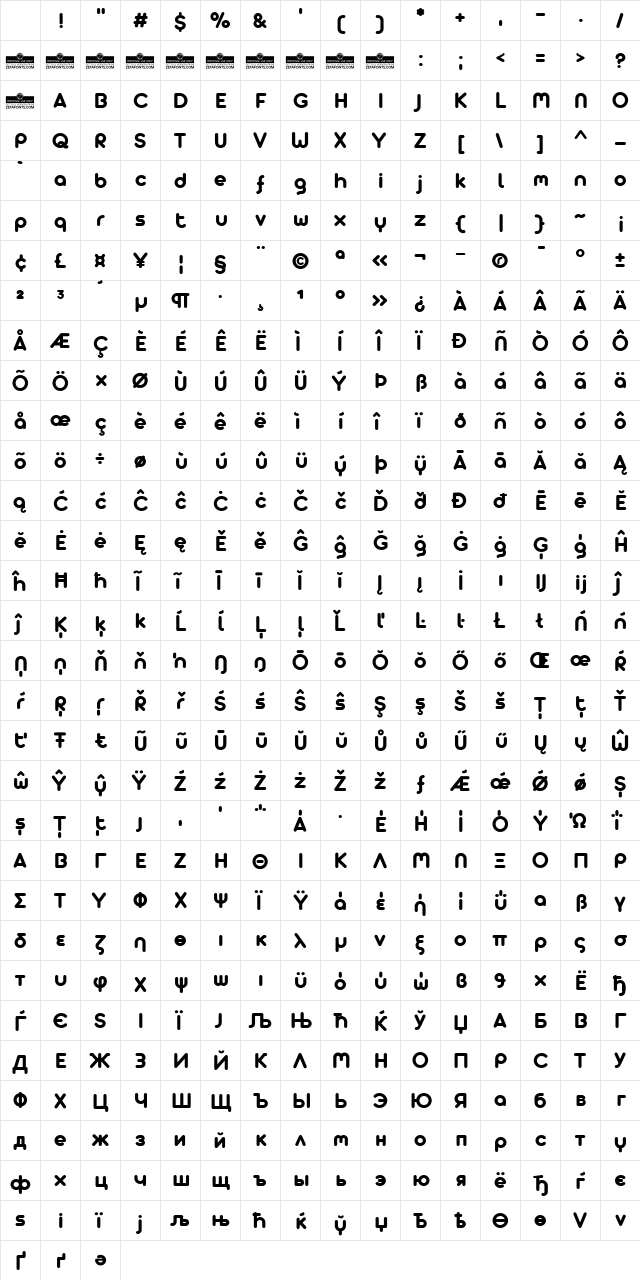
Complete Arista Pro Alternate Bold Regular glyph index. Displaying only characters natively supported by Arista Pro Alternate Bold Regular font.
Arista Pro Alternate Bold is a composed and adaptable typeface that performs quietly and consistently across a wide range of design contexts. Its bold stroke weight gives it real presence on the page.